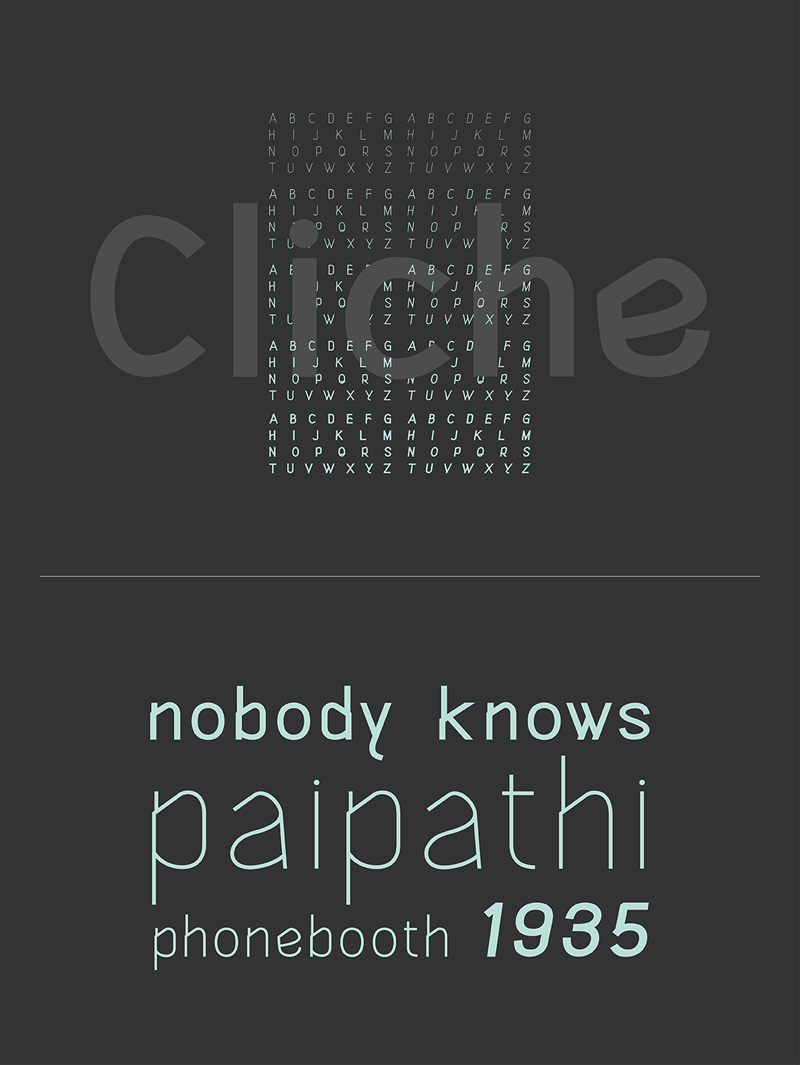
Preview and download Cliche Font. Created by Motoki Higa in Basic Sans serif styles with Free for personal use license.
This is DEMO version, FULL PACKAGE (10 weights) is available on below link. Hi! This is another cliche ish typeface, yet it has subtle and unique lines which deviates from the perfect straight line. Cliche is very versatile and good for any purpose such as logo, headline and body text. Free for personal use. For commercial purpose, please go to below address and purchase it from there. https://creativemarket.com/Moto/20054-Cliche It's coming with 10 weights including 5 italics. 337 glyphs, kerning and 55 languages supported. Thank you! |